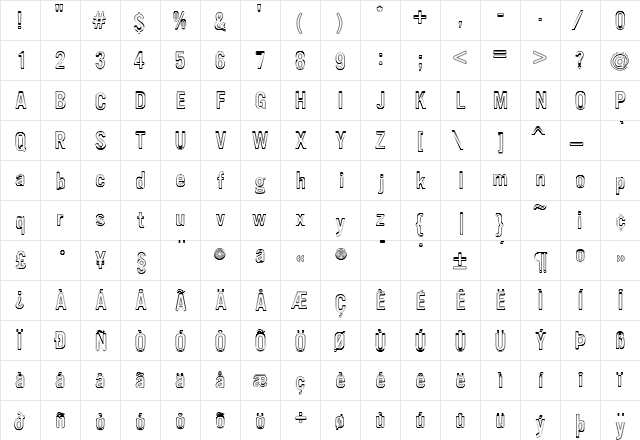
Vinyl Regular
Design Context for Vinyl Typeface
Vinyl is a composed and adaptable typeface that performs quietly and consistently across a wide range of design contexts.